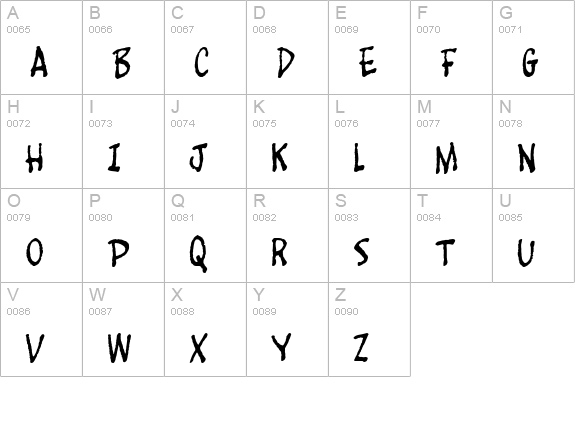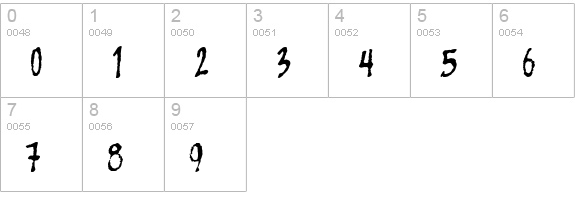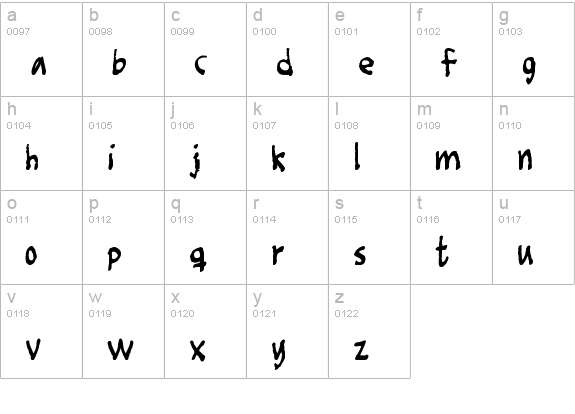
Foot Fight Font Details
Introducing Foot Fight font, a playful and dynamic typeface that brings a unique charm to any design project. This font exudes a sense of energy and movement, making it perfect for projects that require a touch of whimsy and creativity. With its bold and eye-catching letterforms, Foot Fight font is sure to make a statement and capture the attention of viewers. Best of all, Foot Fight font is completely free to download at FontsMarket.com. Whether you're working on a poster, logo, or branding project, this font is a versatile choice that will add a fun and lively touch to your designs. Don't miss out on the opportunity to enhance your projects with the vibrant and expressive Foot Fight font – download it today and let your creativity soar!